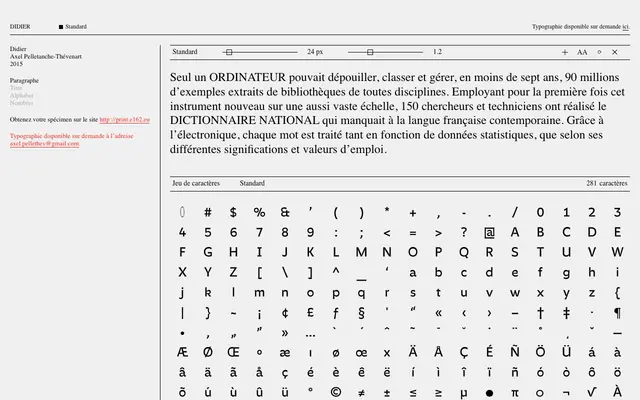
Didier
E162 · Axel Pelletanche-Thévenart · 2015
A single-weight didone designed by Axel Pelletanche-Thévenart in 2015, available on request from the French micro-foundry E162.
Released in 2015 by Axel Pelletanche-Thévenart under E162, Didier is a didone serif with a 281-character Latin character set. The typeface is available to licence on request directly from the designer, with a printed specimen available via a dedicated print subdomain. The family currently offers one standard weight with no italic or condensed cuts.
The name and specimen text point clearly to a Didot-influenced design; the high contrast between thick and thin strokes and vertical stress characteristic of didone typefaces is implied by the French typographic tradition the foundry references.